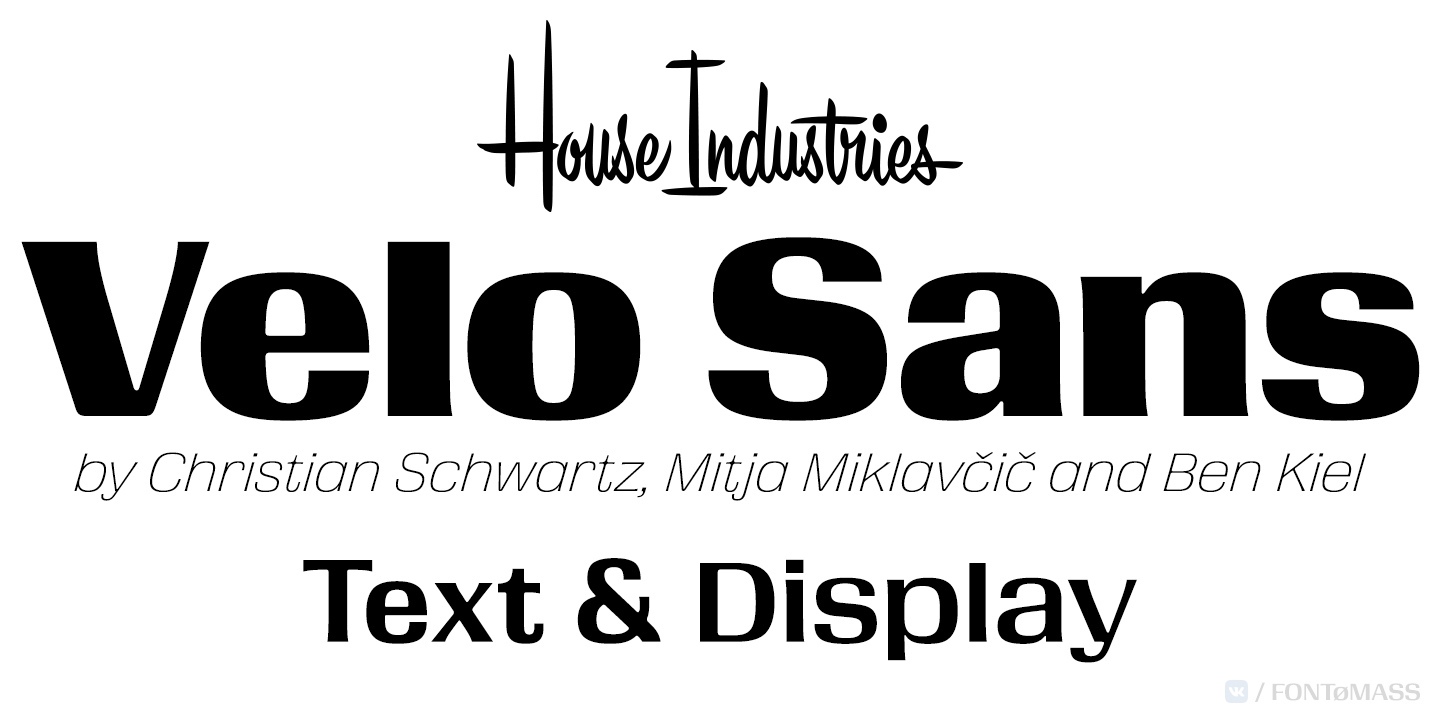
Velo Sans Font
Velo Sans Font is perfect for cycling apparel branding, bike shop signage, sports technology interfaces, fitness app design, athletic event graphics, performance gear packaging, cycling team communications, and modern sports marketing.
What makes Velo Sans Font exciting is its sleek velocity that embodies the cutting-edge technology and streamlined efficiency of modern cycling performance. The font features aerodynamic letterforms with clean lines and precision-engineered proportions that evoke carbon fiber frames, wind tunnels, and the technological innovation driving competitive cycling. Its distinctive streamlined styling and performance-focused design communicate speed, innovation, and athletic precision, making every message feel optimized for peak performance and engineered for competitive advantage.
The Velo Sans Font family includes regular weight with uppercase and lowercase letters, numerals, punctuation marks, and comprehensive special characters. Premium versions often feature multiple weights and performance-optimized alternates that enhance the aerodynamic, technological aesthetic perfect for modern sports applications.
The technological character of Velo Sans Font makes it particularly valuable for cycling tech companies, performance analytics platforms, and modern bike manufacturers. Its excellent readability across digital interfaces ensures performance data and athletic information remain crystal clear while maintaining the distinctive aerodynamic aesthetic that appeals to tech-savvy cyclists and data-driven athletes.
Sports technology marketers appreciate how Velo Sans Font effortlessly conveys innovation and performance optimization. The font's streamlined proportions and technological details create advanced brand materials that establish connections with audiences who value cycling technology, performance analytics, and the scientific approach to athletic excellence.